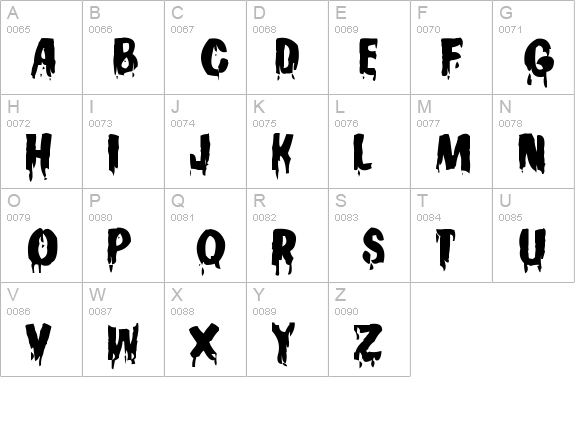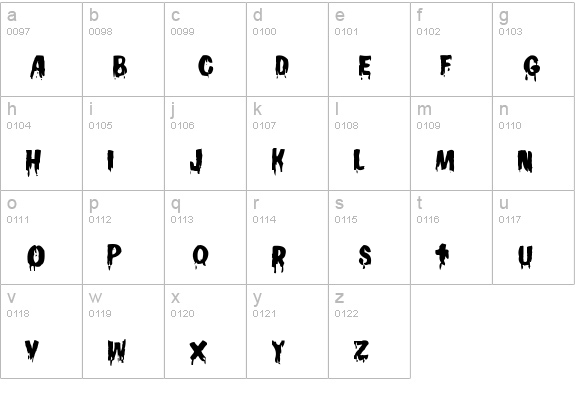
The Gooey font is a whimsical and playful typeface that exudes a sense of fun and creativity. Its unique design features fluid, gooey-like shapes that give it a distinctive and eye-catching appearance. Perfect for a variety of design projects that require a touch of personality and charm, the Gooey font is sure to make a statement. Best of all, the Gooey font is available for free download at FontsMarket.com. Whether you're working on a branding project, creating social media graphics, or designing a poster, this font will add a touch of whimsy and originality to your work. Download the Gooey font today and let your creativity flow!